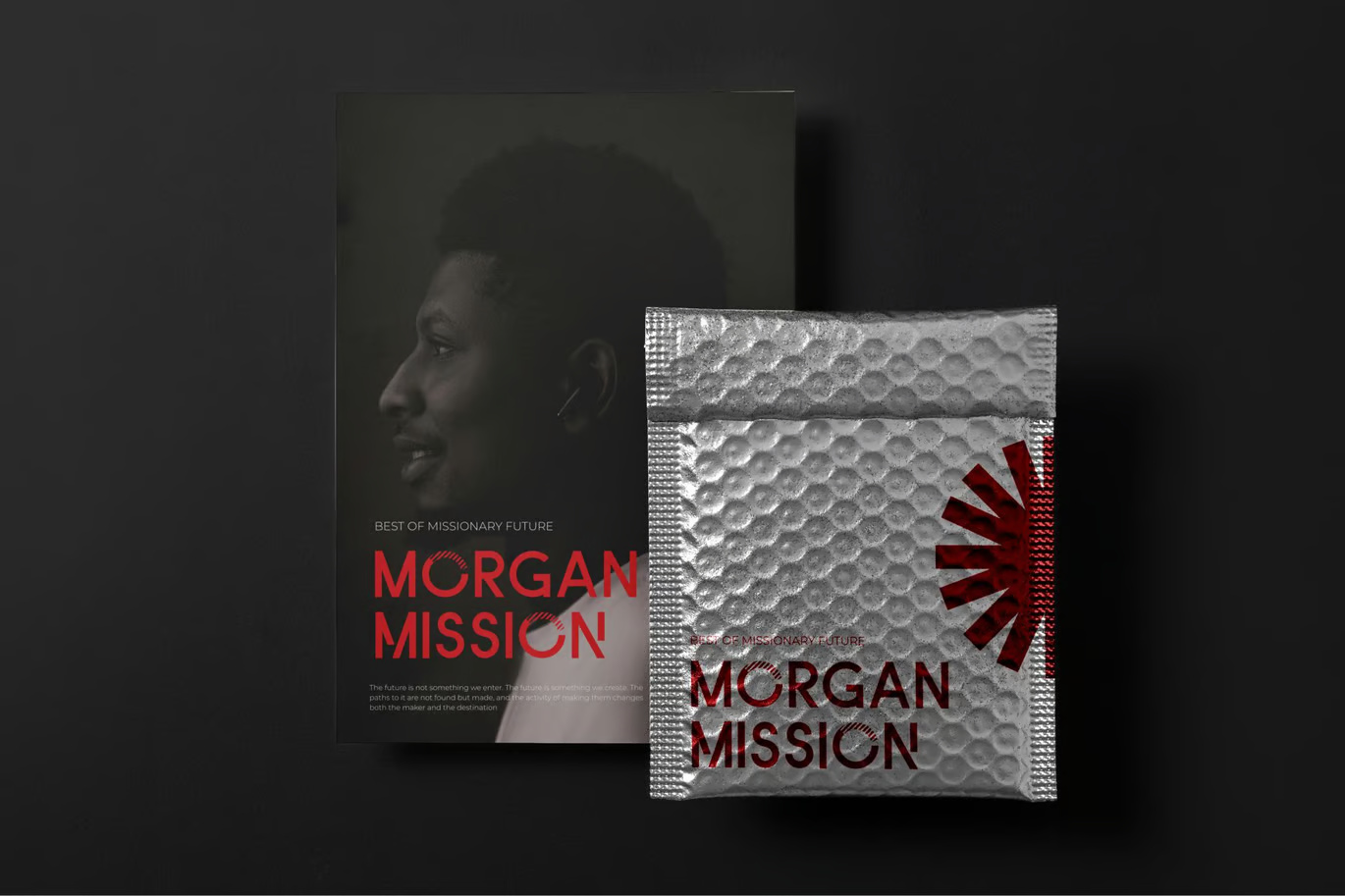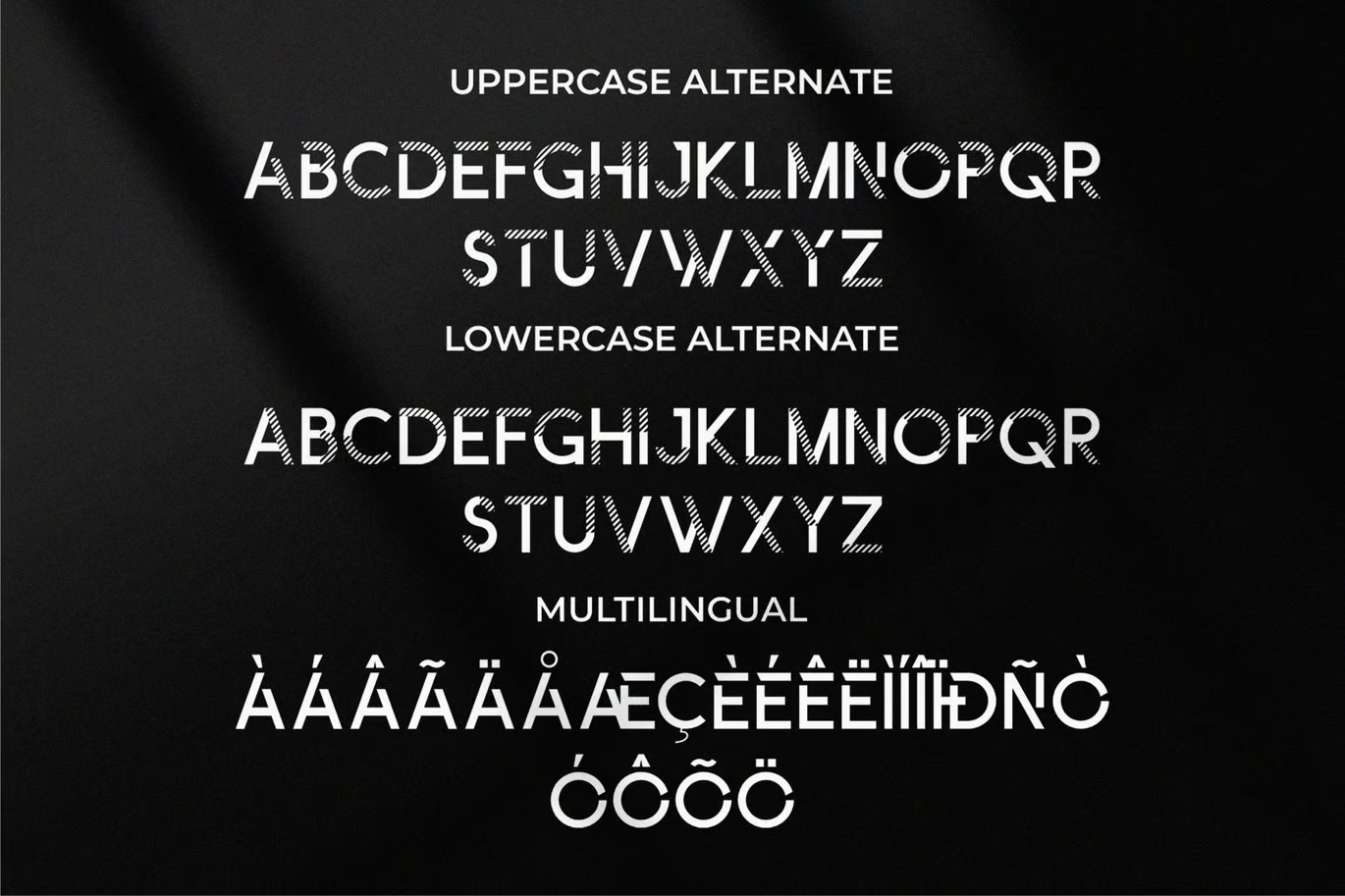
Radelyn Modern Allkaps Sans Serif
Radelyn Serif is an elegant and classy all-caps font designed to bring sophistication to all branding and logo projects. This refined serif typeface features smooth curves, balanced proportions, and stylish alternates that enhance its luxurious appeal. Perfect for invitation cards, distinctive logos, movie titles, business cards, book covers, and upscale brand identities, Radelyn captures timeless beauty with a modern touch. Its elegant ligatures and polished details make it a versatile choice for high-end designs, ensuring a professional and graceful look.
Radelyn Modern Allkaps Sans Serif Font
Radelyn || Modern Allkaps Sans Serif